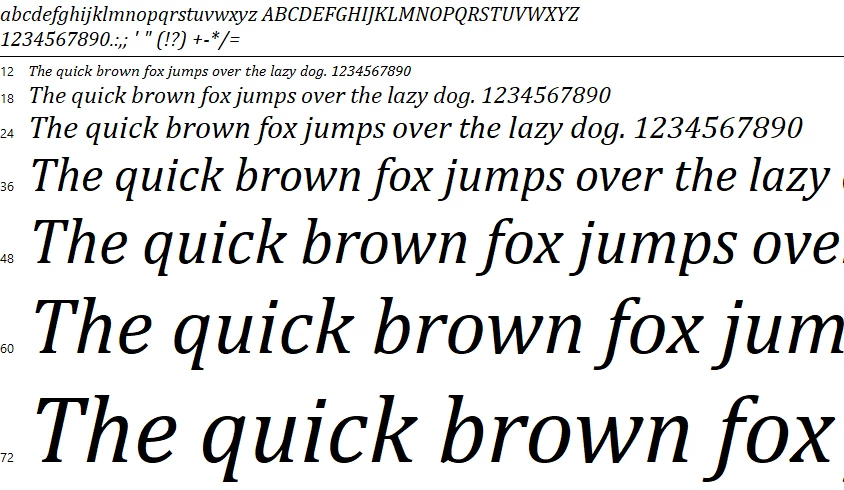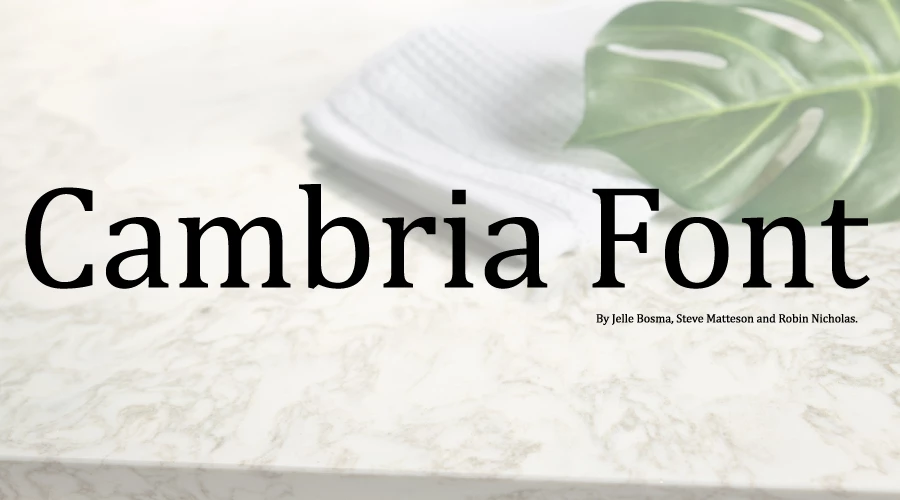
Cambria is a transitional serif typeface commissioned by Microsoft. With input from Steve Matteson and Robin Nicholas, Jelle Bosma (Dutch typeface designer) designed this font in 2004. Cambria is part of the ClearType Font Collection and a very much eye-catchy font. The Cambria has been designed for on-screen reading and to look good when printed at small sizes.
With its OpenType layout features like small-caps, stylistic alternates, localized forms, standard ligatures, uppercase-sensitive forms spacing, and many more, Cambria is distributed with Windows and Office. There is also some other font from the exact same team are Calibri, Candara, Consolas, Constantia, and Corbel.
Cambria Math is a variant design of Cambria which is used for mathematical and scientific texts, as a replacement for Times New Roman. Brenta, Melior, Scientia, and many more fonts are mostly similar to Cambria font. This is a freeware font. Free download is available on our website. To download free, scroll down to our download font section.
As the font has four styles and a eye-catchy typeface, it is good for almost every section you need.
- Designing Work: As the font has four styles, it is good for almost every section you need. For the transitional shape, it may not cover artistic design areas but has a look of great designs.
- Headline: For the Headlines and Text, Cambria font is very good to use. You can utilize its couple of formats according to requirements.
- Official work or Documentation: The font has the look to use in the official work and documentation.
- Logos: You can design your logos with it.
- Websites: I have seen various websites use this font.
- On Screen: Cambria has been designed for on-screen reading and to look good when printed at small sizes.
Cambria Font View
| Name | Cambria Font |
| Style | Transitional Serif. |
| Designer | Jelle Bosma, Steve Matteson and Robin Nicholas. |
Similar Name Font
- Cambria Math.
Similar to Cambria Font
- Brenta.
- Melior.
- Scientia.
- Prensa.
- Swift.
- What type of font is Cambria Font?
Ans: Cambria is a transitional serif typeface commissioned by Microsoft. - Is Cambria Font safe to download and use in My PC and MAC?
Ans: PT Serif is the most similar Google font to Cambria. - Is it OK to use this on an online platform?